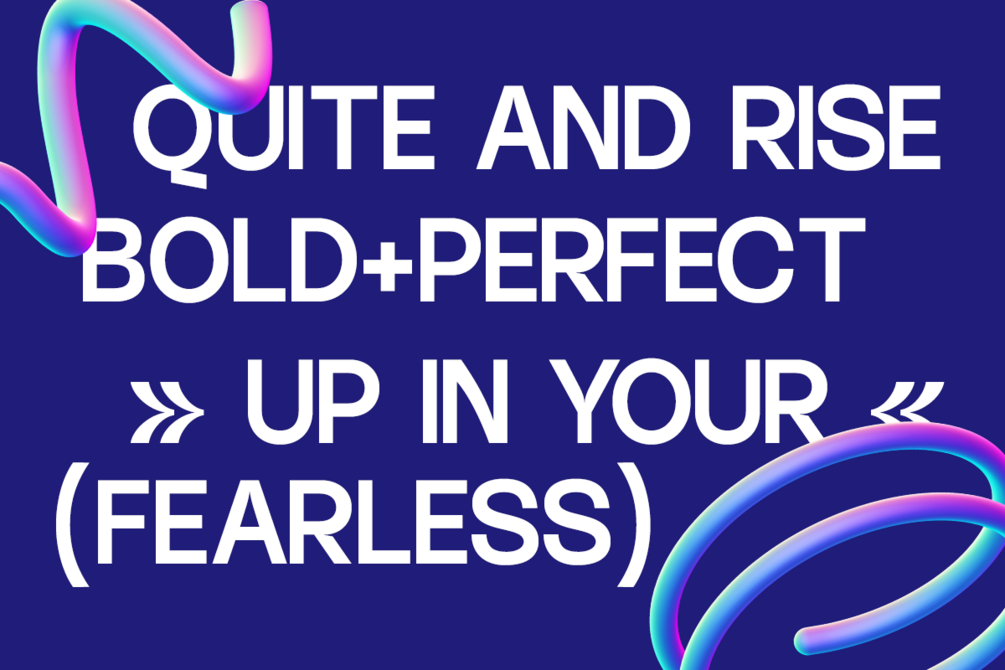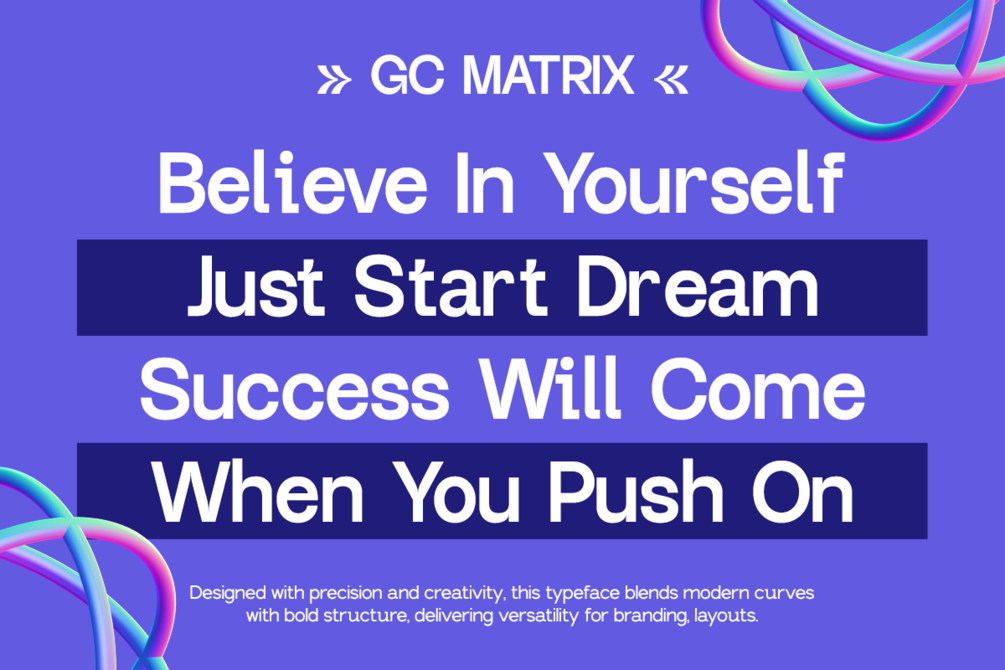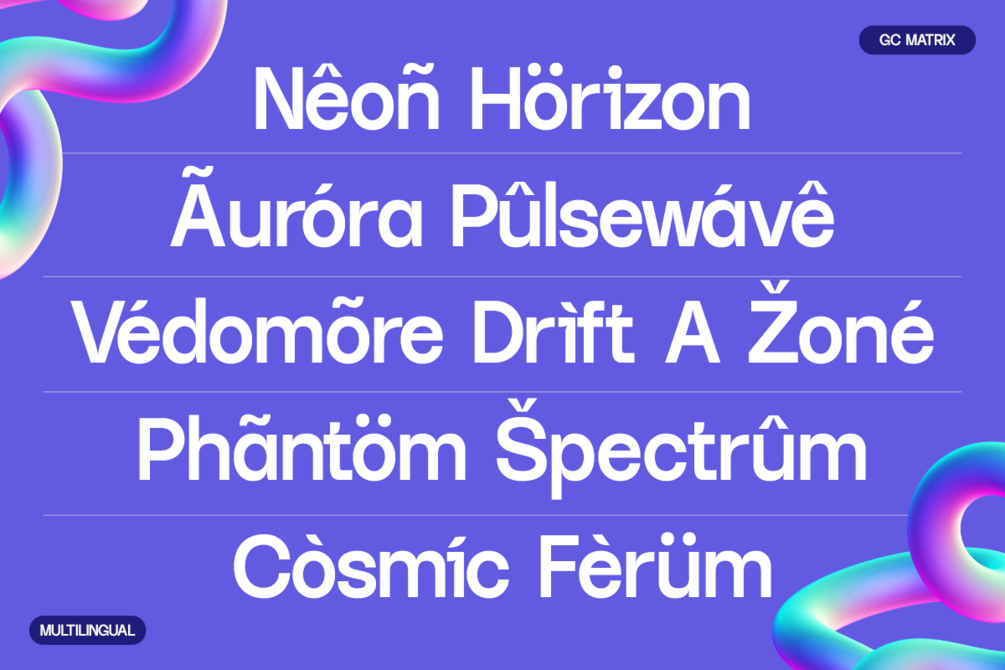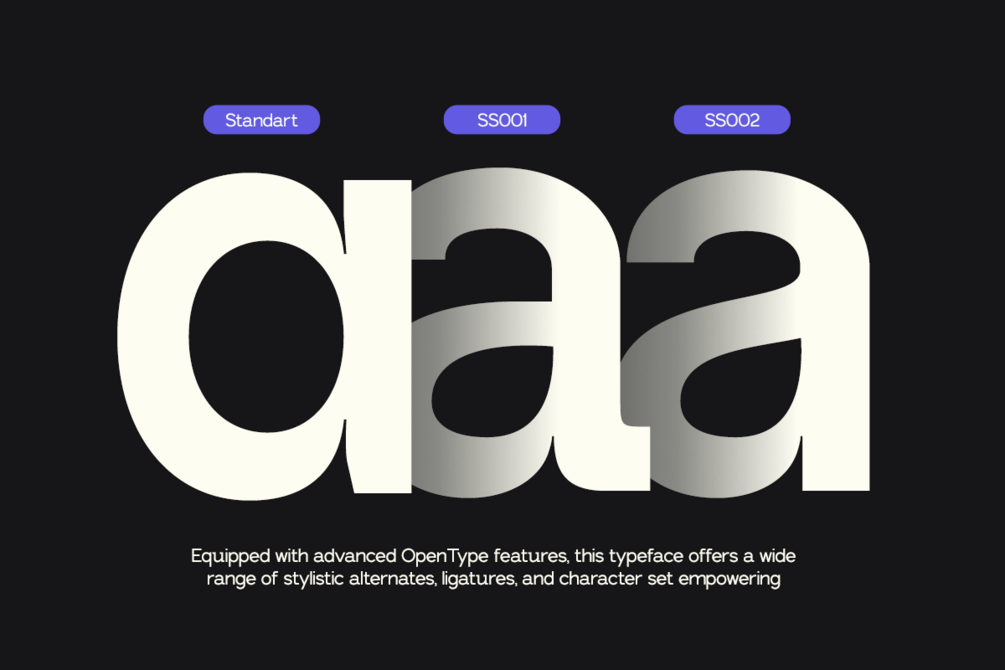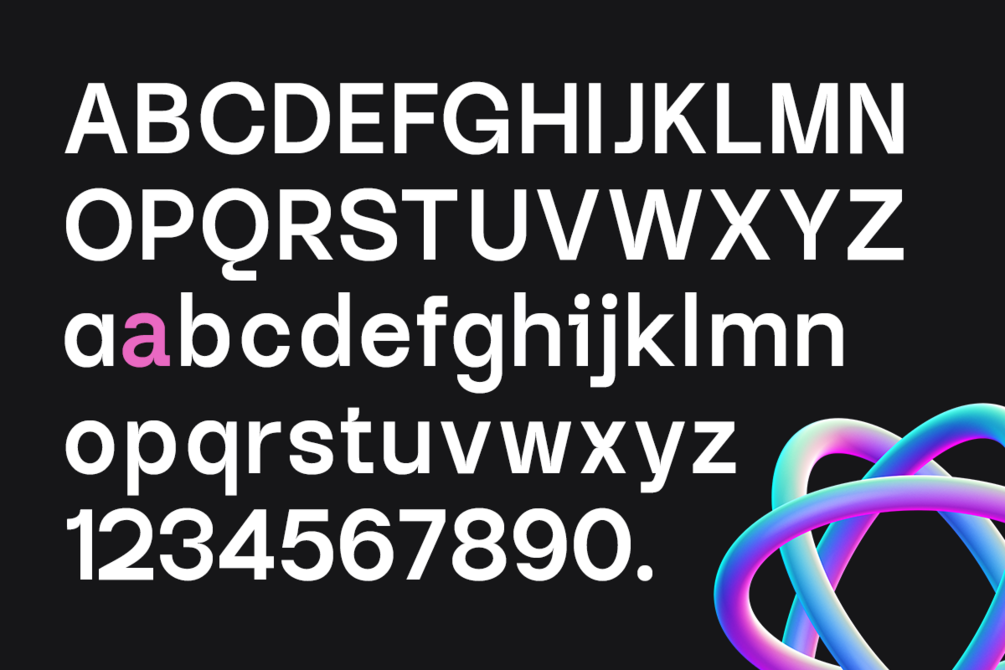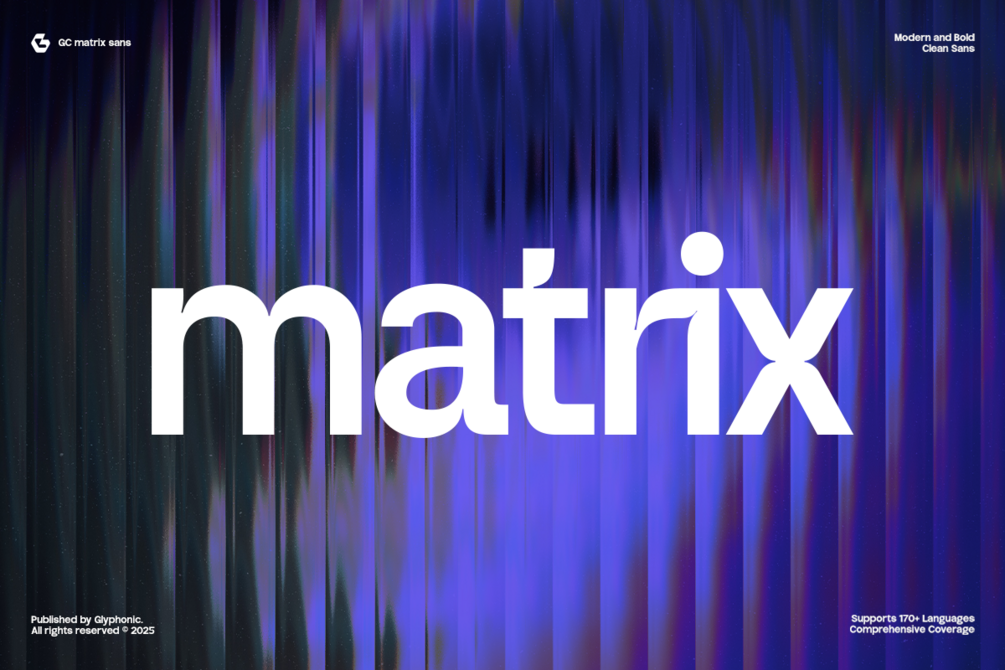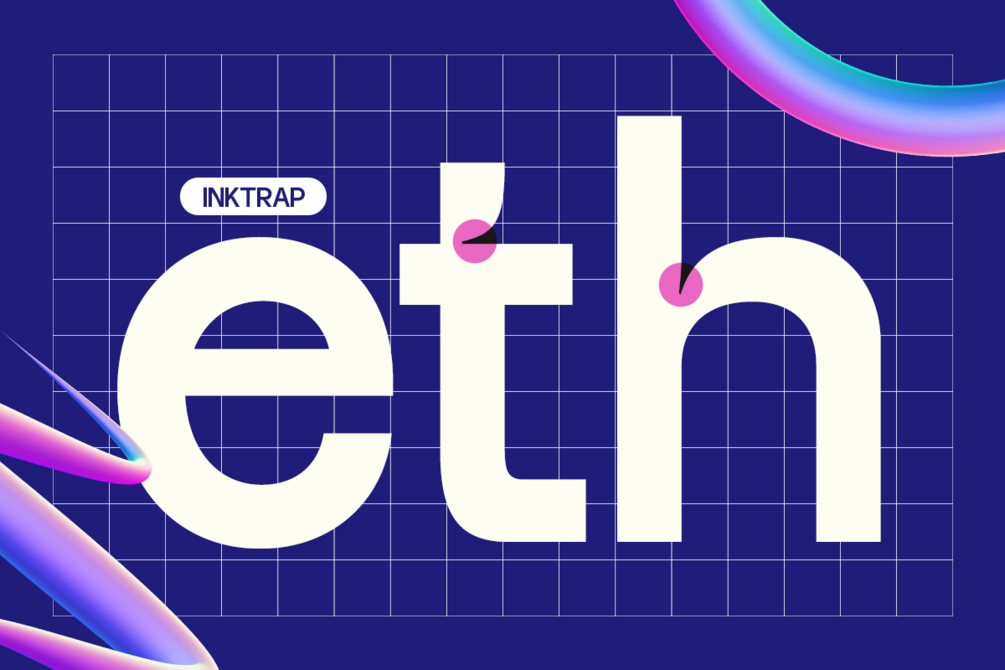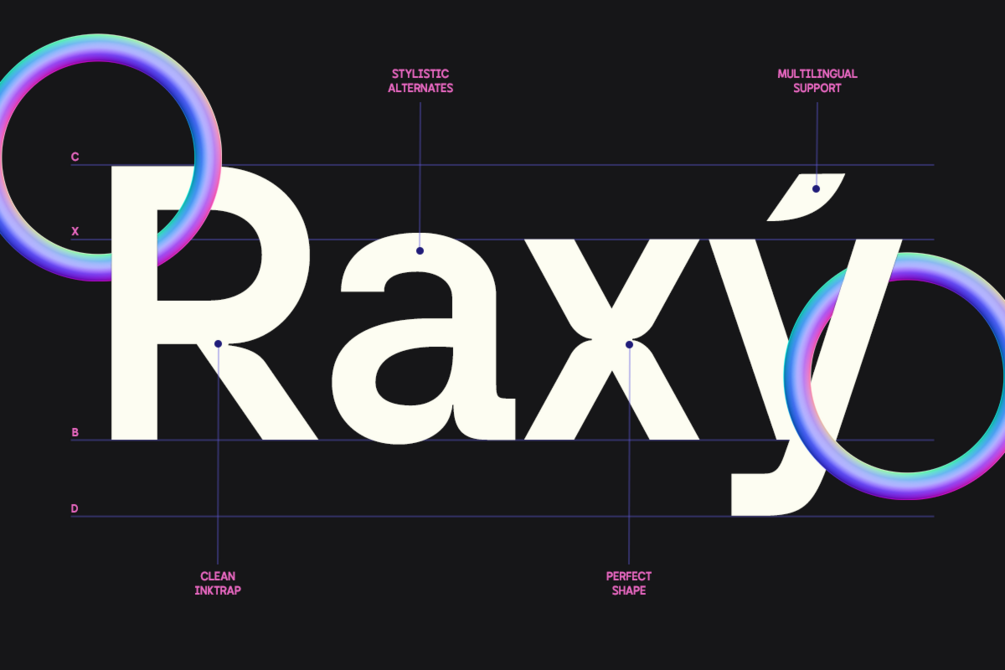
GC Matrix — Bold Modern Simplicity
GC Matrix Sans — Bold Modern Simplicity is a contemporary sans serif typeface crafted for clarity, strength, and modern versatility. With clean geometry and bold strokes, it delivers a confident voice that works seamlessly across digital and print media. Designed to embody simplicity without losing character, it’s perfect for branding, editorial layouts, tech-inspired projects, and striking visual identities.
Balanced proportions and precise detailing make GC Matrix Sans adaptable yet distinctive. Whether you’re building sleek interfaces, bold headlines, or minimalistic posters, this font adds power, modernity, and elegance to your typography.
• Uppercase & Lowercase
• Numbers & Punctuation
• Modern Geometric Construction
• Multilingual Support (170+ Languages)
Bring strength, clarity, and modern elegance to your design with GC Matrix Sans.